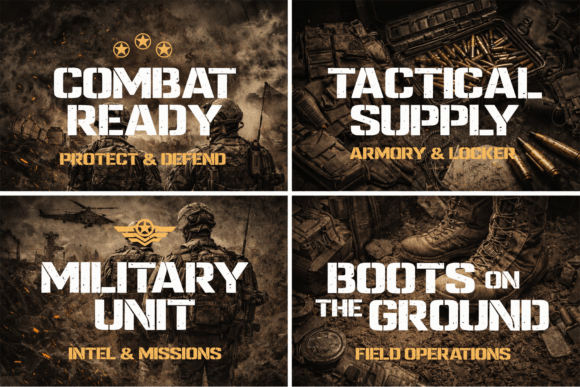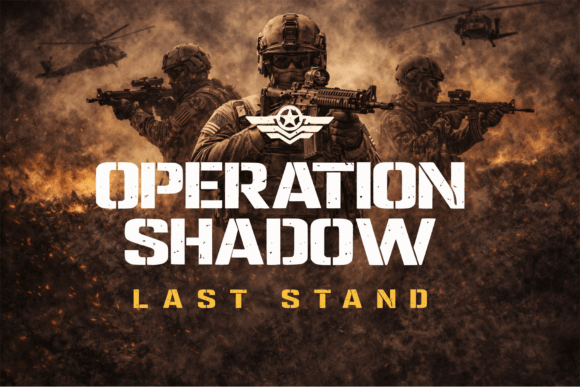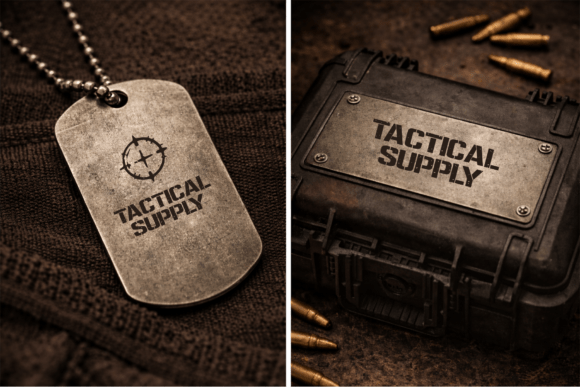
Introduction to Military Steel Font
Military Steel – Bold Stencil Font Military Steel is a strong and impactful stencil display font inspired by industrial, tactical, and military aesthetics.
Designed with sharp cuts, solid structure, and rugged distress details, this typeface delivers a powerful visual presence suitable for bold and commanding designs The stencil construction gives it an authentic military feel, while the subtle rough texture adds character and realism.
Key Features of Military Steel Font
Why Choose Military Steel Font?